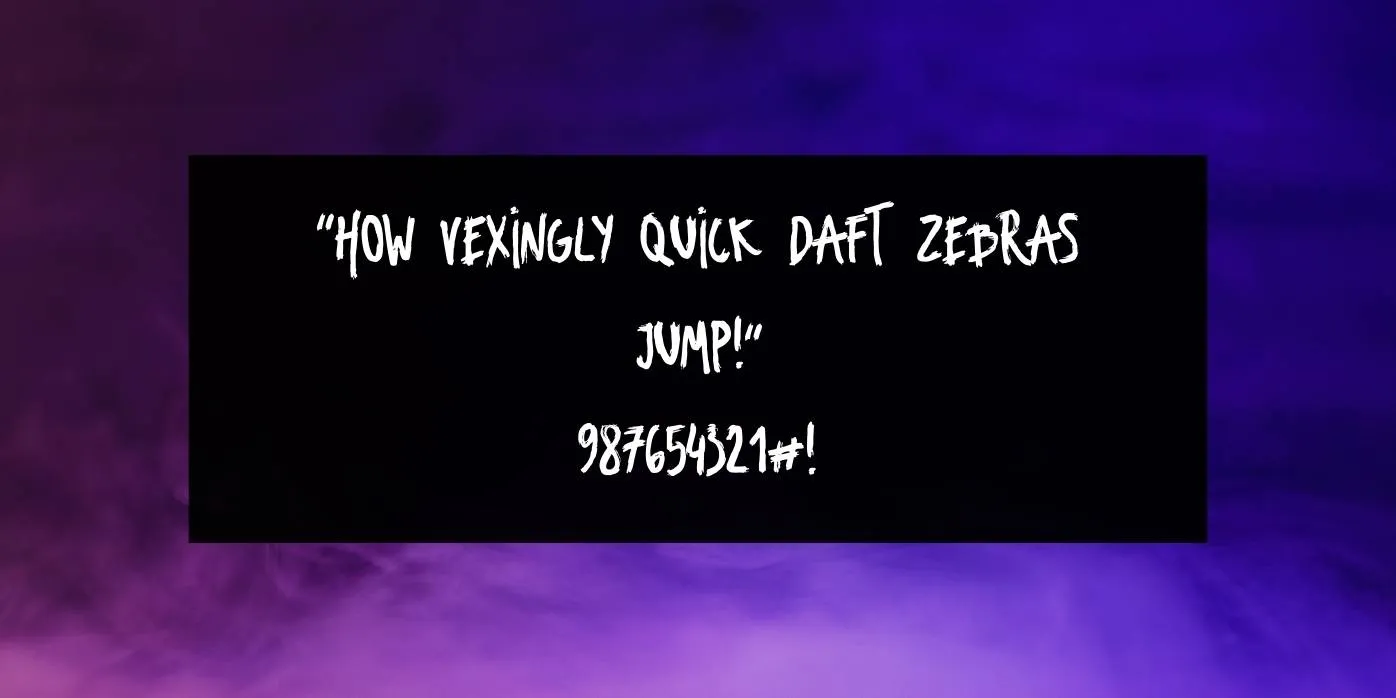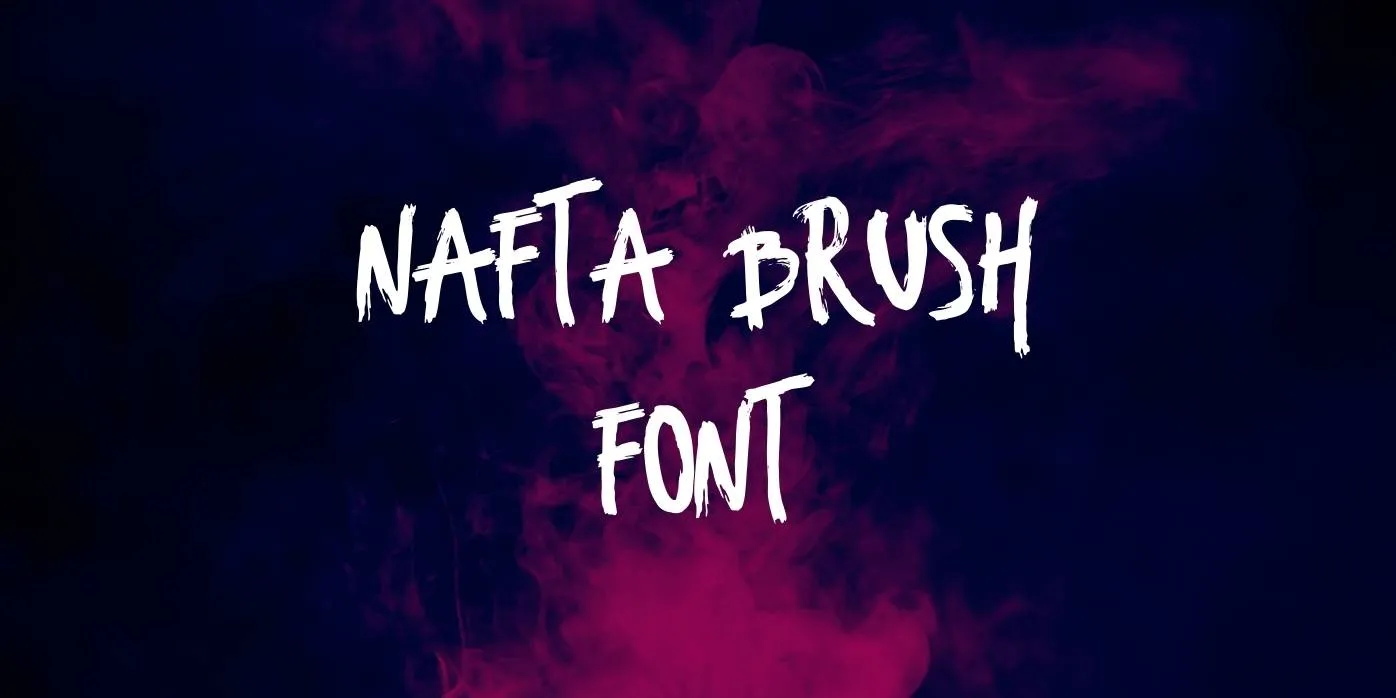
Nafta Brush Font
Nafta Brush Font is a unique font that was created by Mexican designer Raul Garcia in 2013. The font is named after the Mexican city of Nafrarot, which is known for its brush-making industry. The Font has a brush look and feels that makes it stand out from other fonts. The Font was inspired by the brush lettering of the early 20th century.
It has a vintage feel that is perfect for giving your projects a retro look. The font includes both upper and lowercase letters, as well as numbers and special characters. If you are looking for a unique font that will help your projects stand out, then the Nafta Brush Font is a perfect choice. It is also good for pairing functions and if you need a more stylish look to your modern designs then use this typeface with the combination of sweet sensation font.